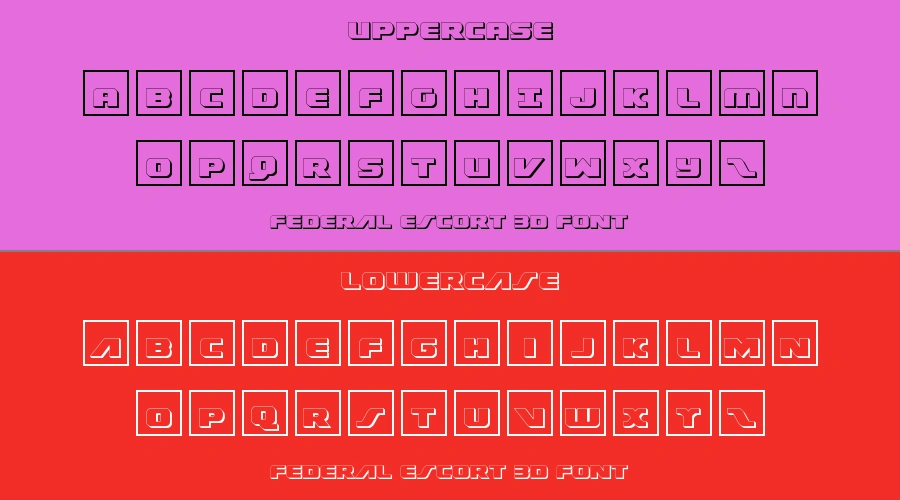
About Federal Escort 3D Font
Federal Escort 3D Font stands out for its distinctive combination of graceful transitions and technical precision. Ideal for advertising headers, it provides the originality and cultural resonance that professional projects demand. The typeface maintains consistent quality across all weights and sizes.
Key features include refined distinctive terminals and practical superior letters, enhancing typographic expression. In featured quotes applications, Federal Escort 3D Font demonstrates exceptional file optimization. The terminal angle and educational suitability contribute to its distinctive character and professional appeal.